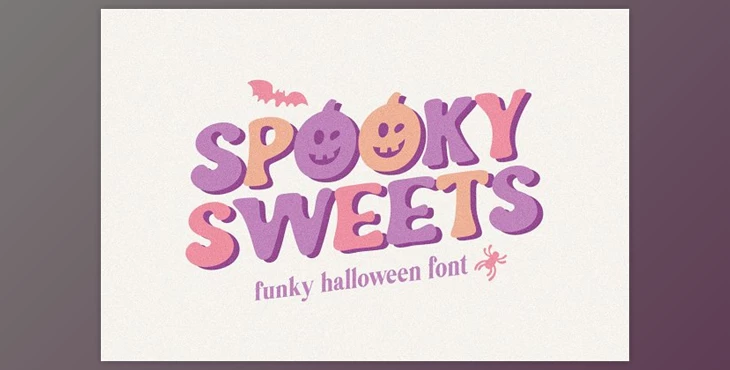
Spooky Sweets Funky Halloween Font: Dive into the Halloween spirit with Spooky Sweets Font!
Elevate your creativity and bring a touch of spookiness to various projects with the versatile Spooky Sweets Font. Unleash your imagination and craft enchanting designs for Halloween-themed festivities.
Perfect for:
- Halloween Party Invitations: Design captivating invitations that set the eerie tone for your Halloween parties and events.
- DIY Halloween Decorations: Create personalized banners, stickers, signs, wall posters, pillows, and mugs for a hauntingly delightful home or party venue.
- Craft Projects: Infuse a spooky vibe into your craft projects, including scrapbooking, Cricut projects, and sublimation designs.
- T-shirt Designs: Print Halloween-themed t-shirts featuring either spine-chilling or fun messages for a unique and spirited wardrobe.
- School Projects: Enhance school presentations or projects with a Halloween theme, making learning more engaging and entertaining.
- Social Media Graphics: Craft eye-catching Halloween-themed posts for your social media accounts, captivating your audience with every scroll.
- Trick-or-Treat Bags and Labels: Design custom labels and bags for trick-or-treaters, adding an extra layer of appeal and thematic charm.
Let Spooky Sweets Font be your creative companion this Halloween, adding a delightful and handwritten charm to your projects. Unwrap the magic and let your designs cast a spell on everyone!